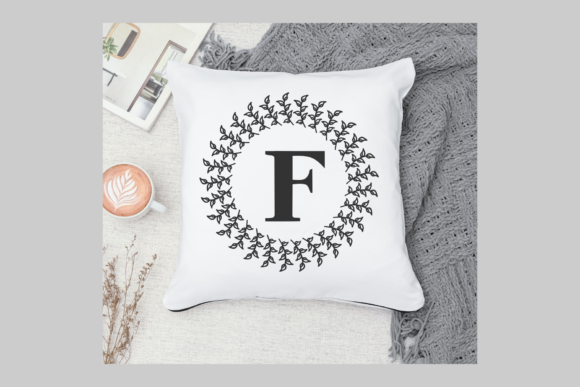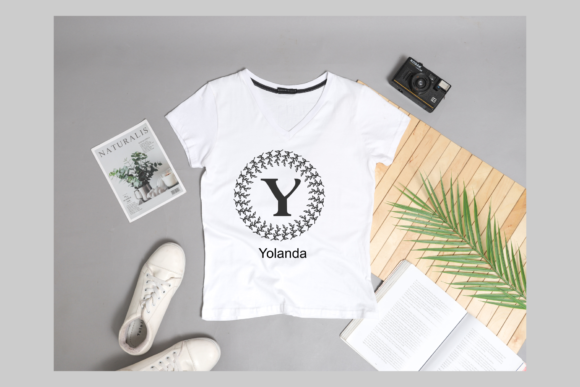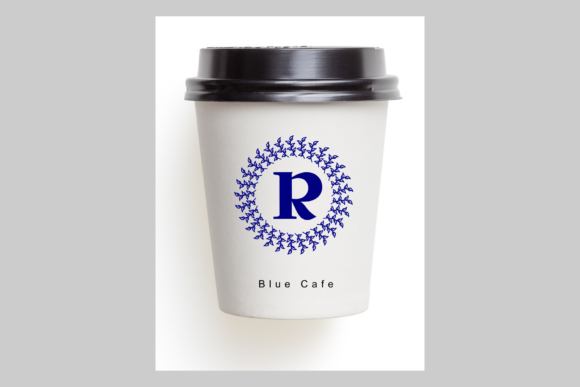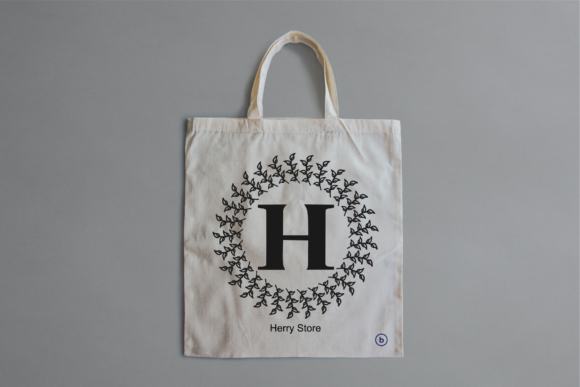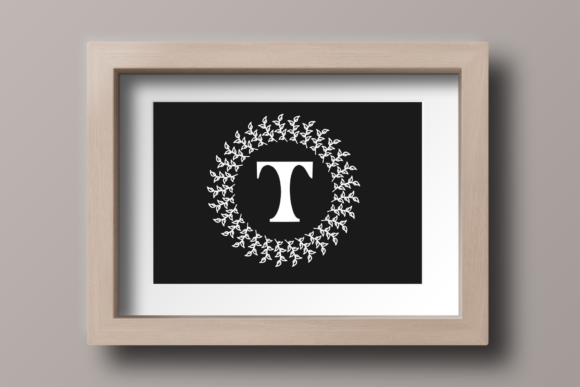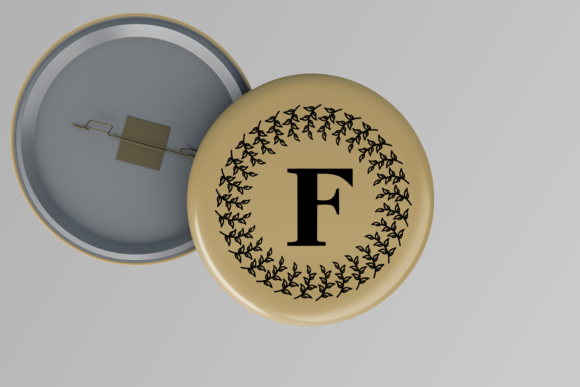
Introduction to Monogram Green Font
Monogram Green is a highly detailed and beautiful decorative font.
Add this lovely-looking font to each of your love letters, wedding invitations, or favorite design ideas, and you will be astounded by the outcome .